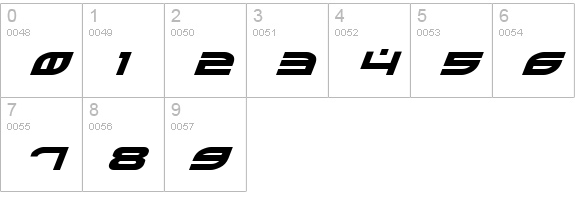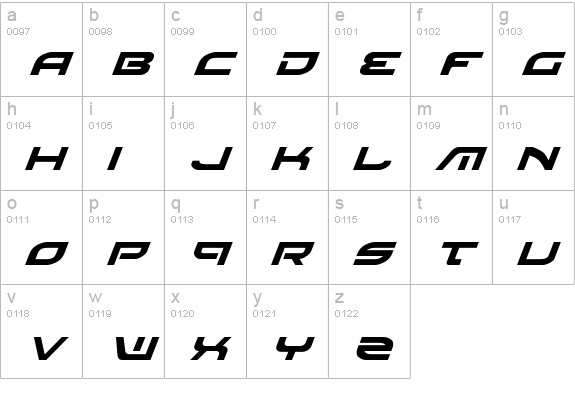
Battlefield Italic is a distinctive, italic variant in the Battlefield typeface family \xE2\x80\x94 well suited to design and typography projects.
Introducing Battlefield Italic font, a bold and dynamic typeface designed to make a statement. With its sleek and modern design, Battlefield Italic is perfect for adding a touch of sophistication to your projects. Whether you're creating eye-catching posters, stylish branding materials, or striking website designs, this font is sure to grab attention. And the best part? Battlefield Italic is available for free download at FontsMarket.com. That's right, you can elevate your designs with this stunning font without spending a dime. So why wait? Download Battlefield Italic today and unleash your creativity with this versatile and stylish typeface.